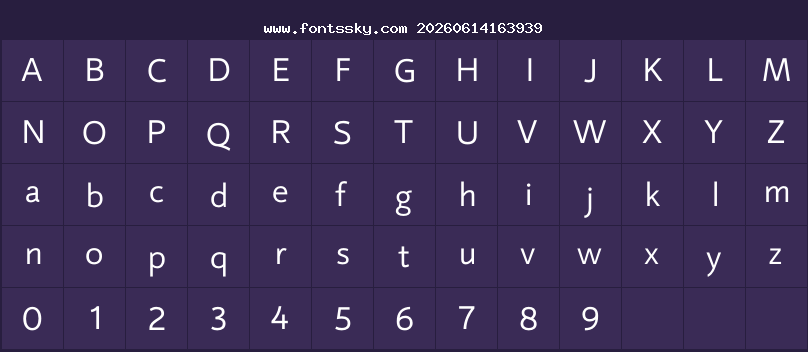
mirror 82 Preview
• Designer: Igor Kosinsky
About mirror 82.otf
mirror 82.otf is a modern, elegant sans-serif font designed for ultimate readability and visual harmony. Perfect for branding, headlines, web design, and print materials.